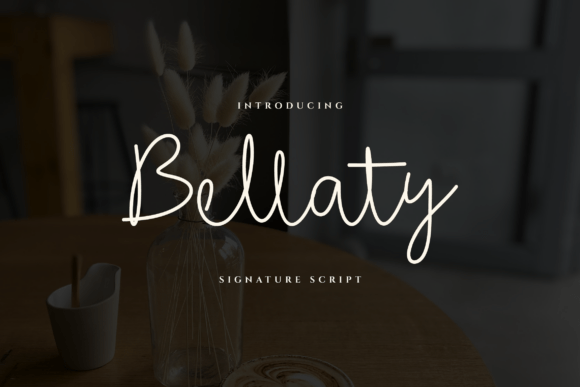
Bellaty Font: Elevate Your Designs with Elegance and Sophistication
In the world of typography, fonts play a crucial role in conveying the tone and personality of a design. When it comes to creating visually stunning and elegant projects, the choice of font is paramount. This is where Bellaty Font comes into play – a modern script font designed to bring a touch of elegance, beauty, and sophistication to your creative endeavors. With its flowing curves and graceful letterforms, Bellaty captures the essence of feminine style and contemporary design, making it an ideal choice for designers looking to add a refined touch to their work.
The Essence of Bellaty Font
Bellaty Font is a meticulously crafted script font that embodies the perfect blend of modernity and classic elegance. Its design is characterized by flowing curves, delicate strokes, and a harmonious balance of thick and thin lines, which collectively contribute to its sophisticated and refined appearance. Each letterform in the Bellaty Font is carefully designed to ensure that it not only stands out on its own but also complements others to create a cohesive and aesthetically pleasing text.
Key Features of Bellaty Font
- Elegant and Sophisticated Design: Bellaty Font boasts an elegant and sophisticated design that can instantly elevate the look of your projects. Its modern script style is perfect for designs that require a touch of luxury and refinement.
- Feminine Touch: The font’s graceful letterforms and flowing curves give it a distinctly feminine touch, making it ideal for projects that cater to a female audience or require a delicate aesthetic.
- Versatility: Bellaty Font is incredibly versatile and can be used across various design projects, including branding, packaging, advertising, and more. Its adaptability makes it a valuable addition to any designer’s font collection.
- Readability: Despite its elegant and cursive nature, Bellaty Font maintains a high level of readability, ensuring that your text is not only beautiful but also easy to read.
Uses of Bellaty Font
The versatility of Bellaty Font makes it suitable for a wide range of applications. Here are some of the most popular uses:
- Branding and Logo Design: Create memorable and elegant brand identities with Bellaty Font. Its unique and sophisticated style can help your brand stand out in a crowded market.
- Wedding and Event Invitations: Add a touch of elegance and romance to your wedding or event invitations with Bellaty Font. Its beautiful script style is perfect for creating stunning and heartfelt invitations.
- Packaging Design: Elevate your product packaging with the refined and luxurious look of Bellaty Font. It’s ideal for high-end products that require a sophisticated and premium feel.
- Advertising and Marketing Materials: Use Bellaty Font in your advertising and marketing materials to convey a sense of elegance and sophistication. It’s perfect for campaigns that target a female audience or require a touch of luxury.
Why Choose Bellaty Font?
In a world where design trends are constantly evolving, having a font that can keep up with the demands of modern design is crucial. Here are a few reasons why Bellaty Font stands out:
- Unique and Distinctive: Bellaty Font offers a unique and distinctive style that can help your designs stand out. Its elegant and sophisticated appearance ensures that your projects look refined and luxurious.
- Easy to Use: Bellaty Font is incredibly easy to use and can be seamlessly integrated into various design projects. Whether you’re a professional designer or a DIY enthusiast, Bellaty Font is a great choice.
- High-Quality Design: The font is meticulously designed to ensure high-quality output. With Bellaty Font, you can be confident that your designs will look professional and polished.
Bellaty Font is a modern script font that brings a touch of elegance, beauty, and sophistication to your creative projects. With its flowing curves, graceful letterforms, and versatile design, Bellaty is perfect for designers looking to add a refined and luxurious touch to their work. Whether you’re creating branding materials, wedding invitations, packaging, or advertising, Bellaty Font is an excellent choice. Its unique and distinctive style, ease of use, and high-quality design make it a valuable addition to any designer’s font collection. Elevate your designs with the elegance and sophistication of Bellaty Font and make your projects stand out with a touch of luxury and refinement.